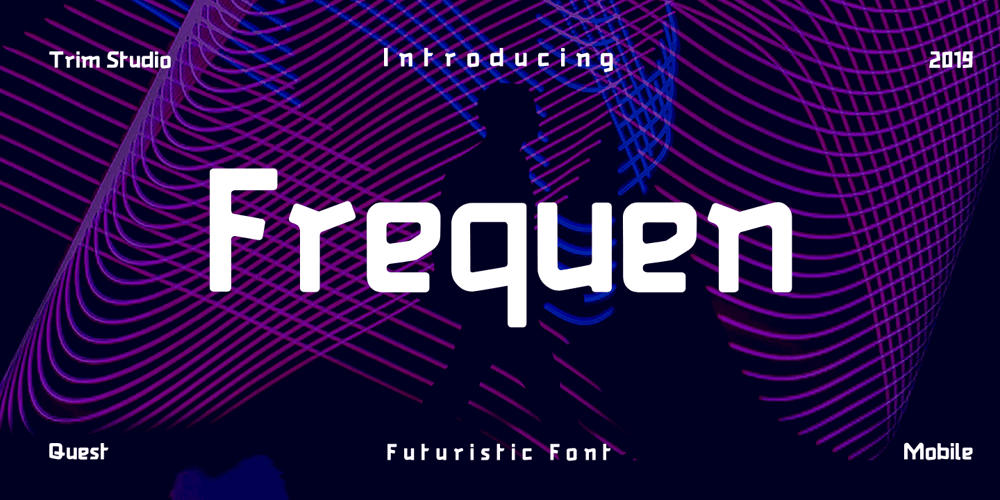
Frequen Font Family was designed by Deri Kurnia and published by Trim Studio. Frequen contains 2 styles and family package options. Frequen is a futuristic font, inspired by sci-fi and technology, so we designed the font with modern feel to achieve the theme. It is also well suited for branding, magazine, marketing design, technology, sci-fi design, bag, any much more.